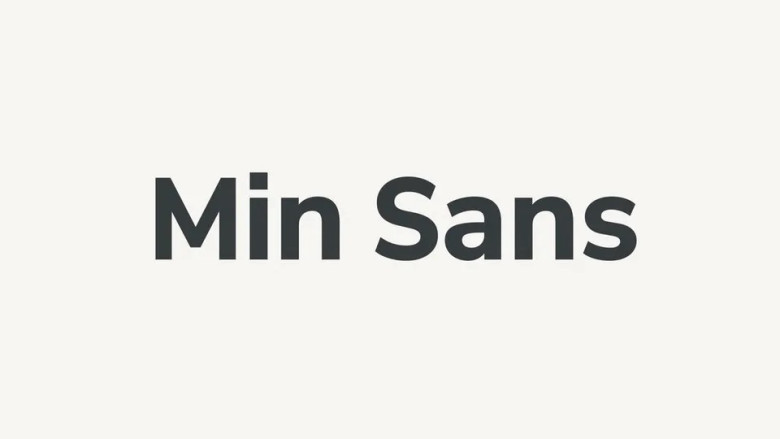
Min Sans Font
Min Sans is a harmonious multilingual typeface that includes CJK, Latin letters, and numbers of most Dialects in China. The typeface is based on Noto Sans and Nunito Sans, and it can be used across all platforms without changing the display.